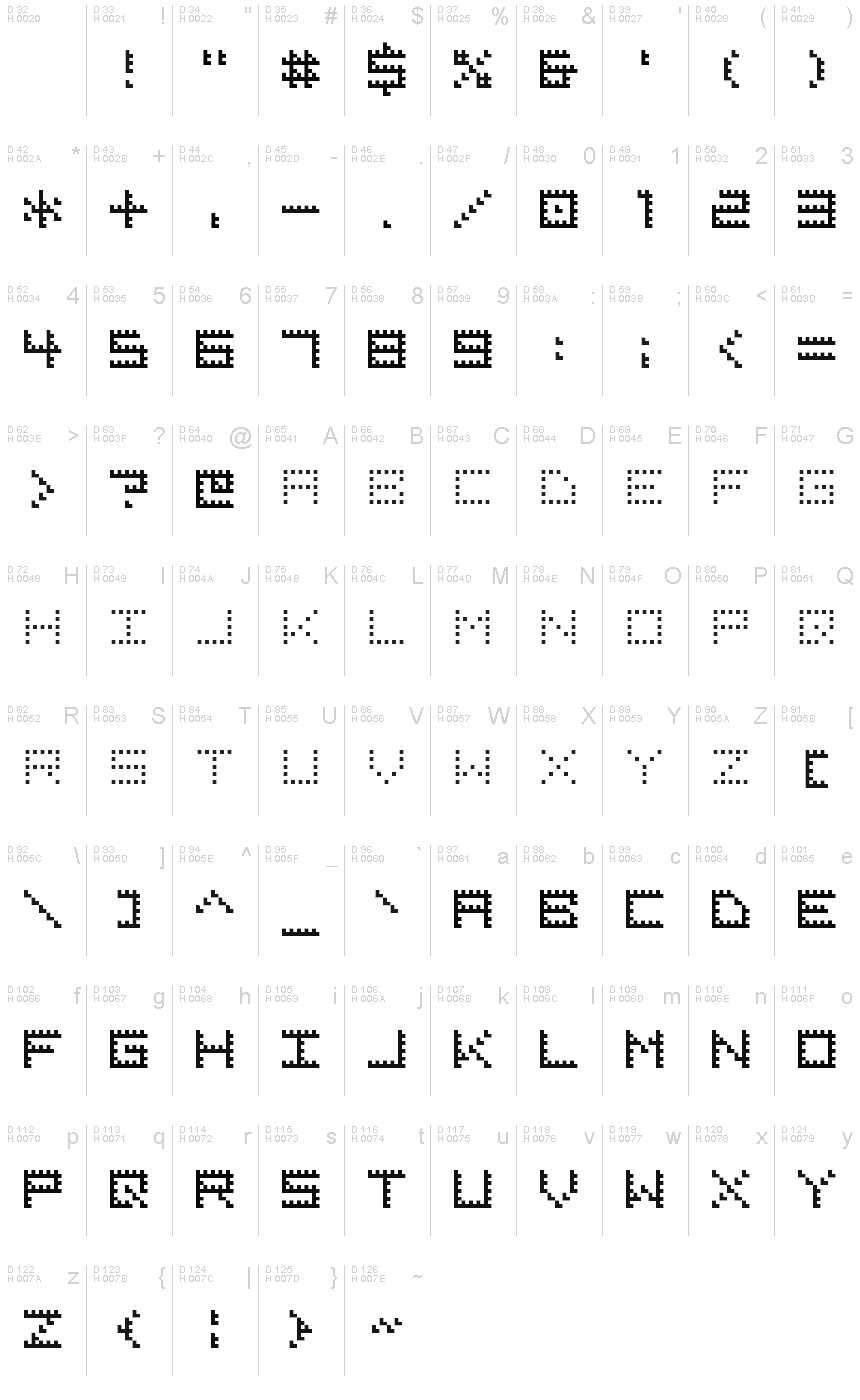
Neato
Neato is a captivating bitmap font that exudes a distinct pixelated charm. Designed by memesbruh03, this expanded font style immediately commands attention with its sharp, geometric letterforms and eye-catching visual impact. The pixelated aesthetic lends it a retro-inspired flair, making it well-suited for a variety of design applications, from retro gaming aesthetics to eye-catching headlines and logo designs. The expanded width adds a bold, attention-grabbing presence, ensuring that Neato stands out in any context.
This font's versatile nature and striking visuals make it a compelling choice for designers seeking to infuse their projects with a unique, memorable typographic personality.
A box-like typeface that can be layered